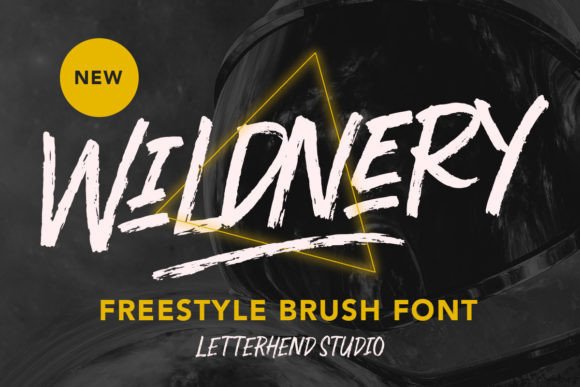
Introducing Wildnery Font: The Ultimate Freestyle Textured Brush Font
Are you looking for a font that can add a touch of authenticity and creativity to your designs? Look no further than Wildnery Font, a freestyle textured brush font that is perfect for projects that seek to stand out with a bold and creative statement. With its organic and hand-drawn appearance, Wildnery Font is ideal for a wide range of design applications, from logos and invitations to packaging and advertising.
What is Wildnery Font?
Wildnery Font is a unique and versatile font that is designed to add a personal touch to your designs. Its freestyle textured brush font style gives it an organic and hand-drawn appearance that is perfect for creating bold and creative statements. The font is carefully crafted to ensure that it is easy to read and understand, making it perfect for use in a variety of design projects.
Key Features of Wildnery Font
Wildnery Font comes with a range of key features that make it an ideal choice for designers. Some of the key features of the font include:
- Freestyle Textured Brush Font Style: Wildnery Font has a unique freestyle textured brush font style that gives it an organic and hand-drawn appearance.
- Organic and Hand-Drawn Appearance: The font has an organic and hand-drawn appearance that adds a touch of authenticity to your designs.
- PUA Encoded: Wildnery Font is PUA encoded, which means that you can access all of the amazing glyphs and ligatures with ease.
- Multilingual Support: The font supports multiple languages, making it perfect for use in a variety of design projects.
Use Cases for Wildnery Font
Wildnery Font is a versatile font that can be used in a wide range of design applications. Some of the most popular use cases for the font include:
- Logos: Wildnery Font is perfect for use in logos, as it adds a touch of authenticity and creativity to your brand.
- Invitations: The font is ideal for use in invitations, as it adds a personal touch to your event.
- Labels: Wildnery Font can be used to create custom labels for products, gifts, and more.
- Magazines and Books: The font is perfect for use in magazines and books, as it adds a touch of creativity and authenticity to your content.
- Greeting and Wedding Cards: Wildnery Font is ideal for use in greeting and wedding cards, as it adds a personal touch to your message.
- Packaging: The font can be used to create custom packaging for products, adding a touch of creativity and authenticity to your brand.
- Fashion and Make-Up: Wildnery Font is perfect for use in fashion and make-up designs, as it adds a touch of creativity and authenticity to your brand.
- Stationery: The font can be used to create custom stationery, including letterheads, envelopes, and more.
- Novels: Wildnery Font is ideal for use in novels, as it adds a touch of creativity and authenticity to your content.
- Advertising: The font can be used in a variety of advertising applications, including billboards, posters, and more.
Benefits of Using Wildnery Font
There are many benefits to using Wildnery Font in your designs. Some of the key benefits of the font include:
- Unique and Creative: Wildnery Font is a unique and creative font that adds a touch of authenticity to your designs.
- Easy to Read: The font is carefully crafted to ensure that it is easy to read and understand.
- Versatile: Wildnery Font can be used in a wide range of design applications.
- PUA Encoded: The font is PUA encoded, making it easy to access all of the amazing glyphs and ligatures.
Tips and Tricks for Using Wildnery Font
Here are some tips and tricks for using Wildnery Font:
- Experiment with Different Sizes: Experiment with different font sizes to find the perfect size for your design.
- Use the Glyphs and Ligatures: Use the glyphs and ligatures to add a touch of creativity and authenticity to your designs.
- Combine with Other Fonts: Combine Wildnery Font with other fonts to create a unique and creative design.
- Use in Different Colors: Use Wildnery Font in different colors to add a pop of color to your design.
Wildnery Font is a unique and versatile font that is perfect for designers who want to add a touch of authenticity and creativity to their designs. With its organic and hand-drawn appearance, PUA encoding, and multilingual support, Wildnery Font is ideal for use in a wide range of design applications. Whether you’re creating a logo, invitation, label, or advertisement, Wildnery Font is the perfect choice.